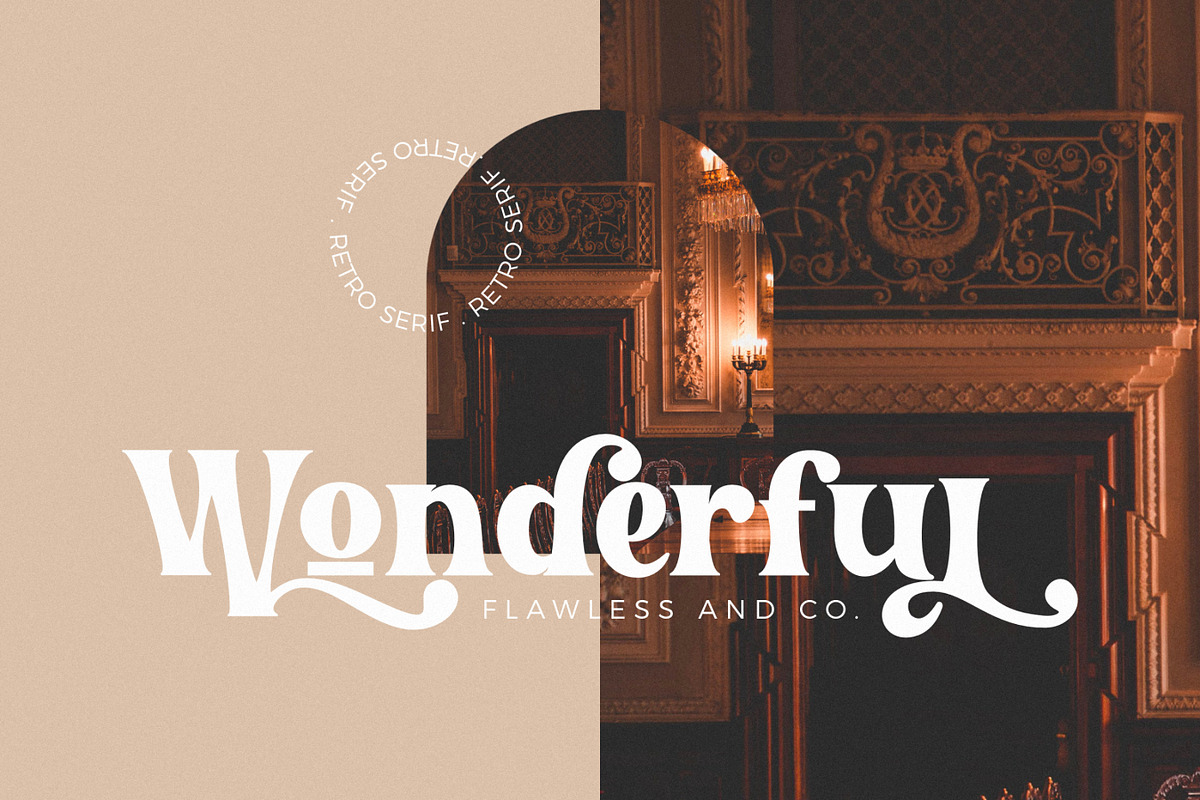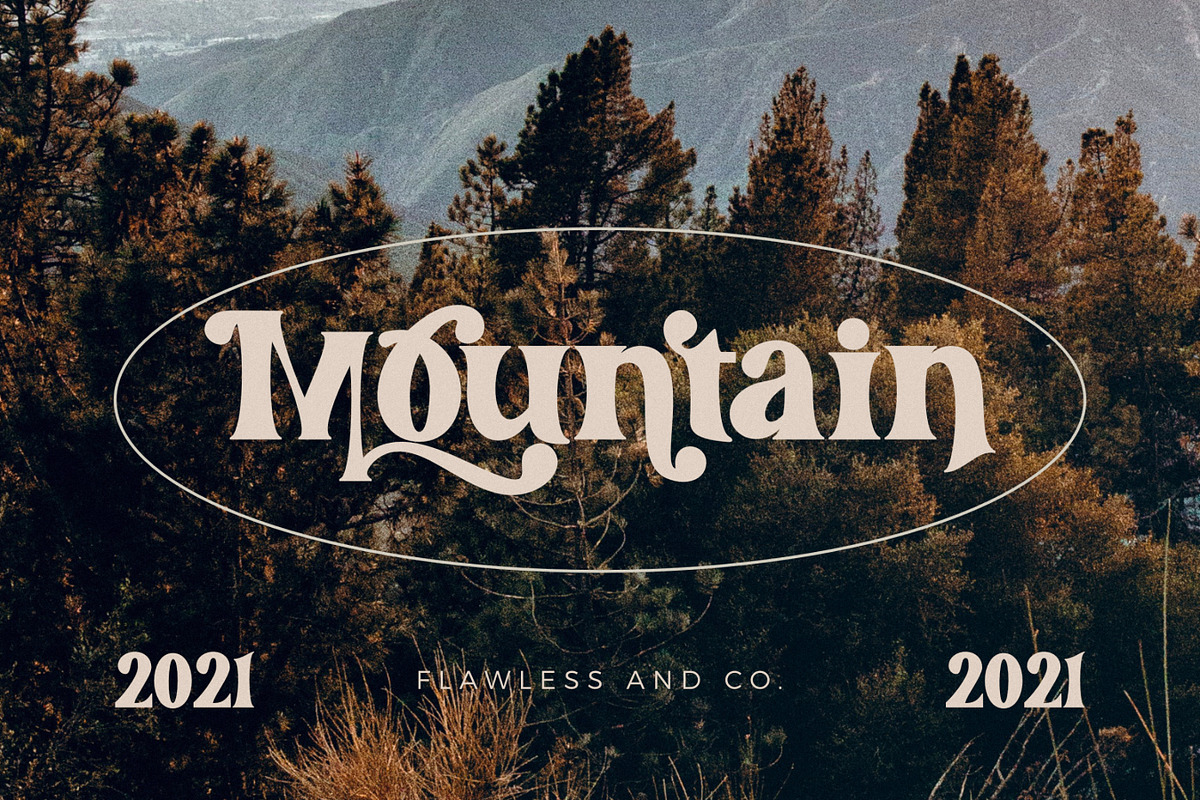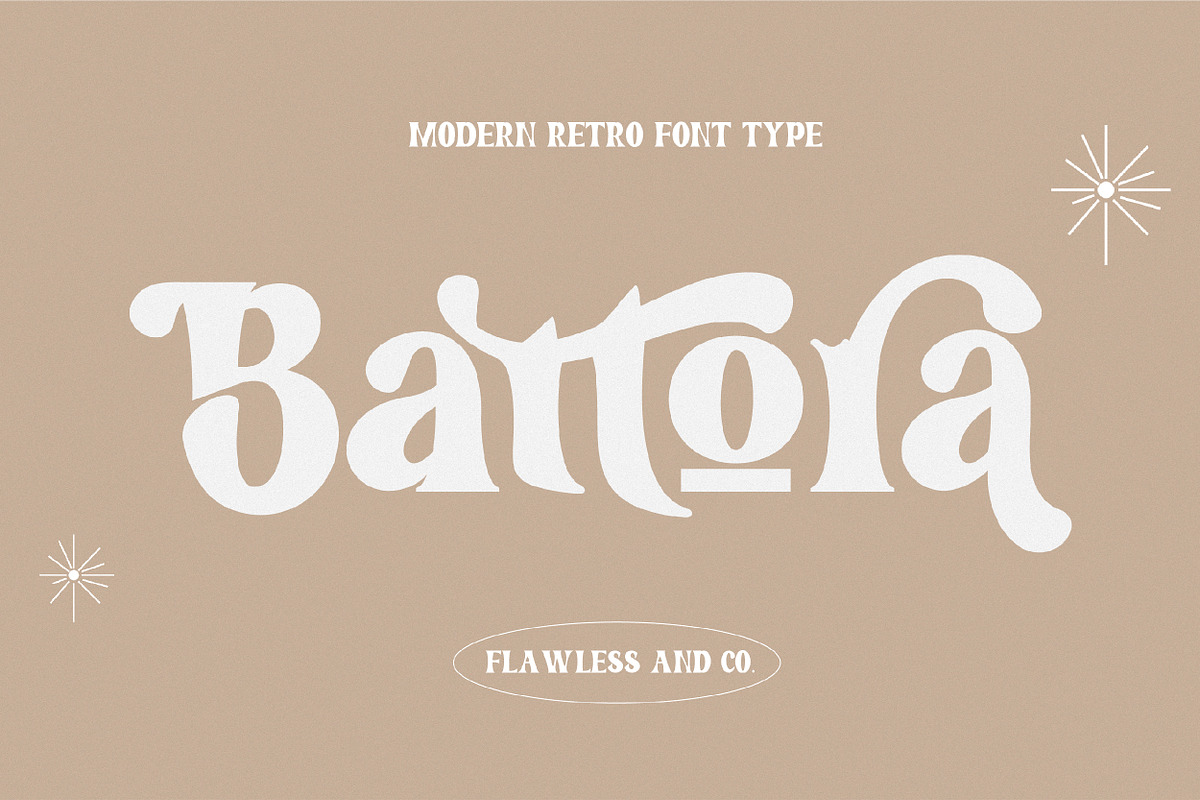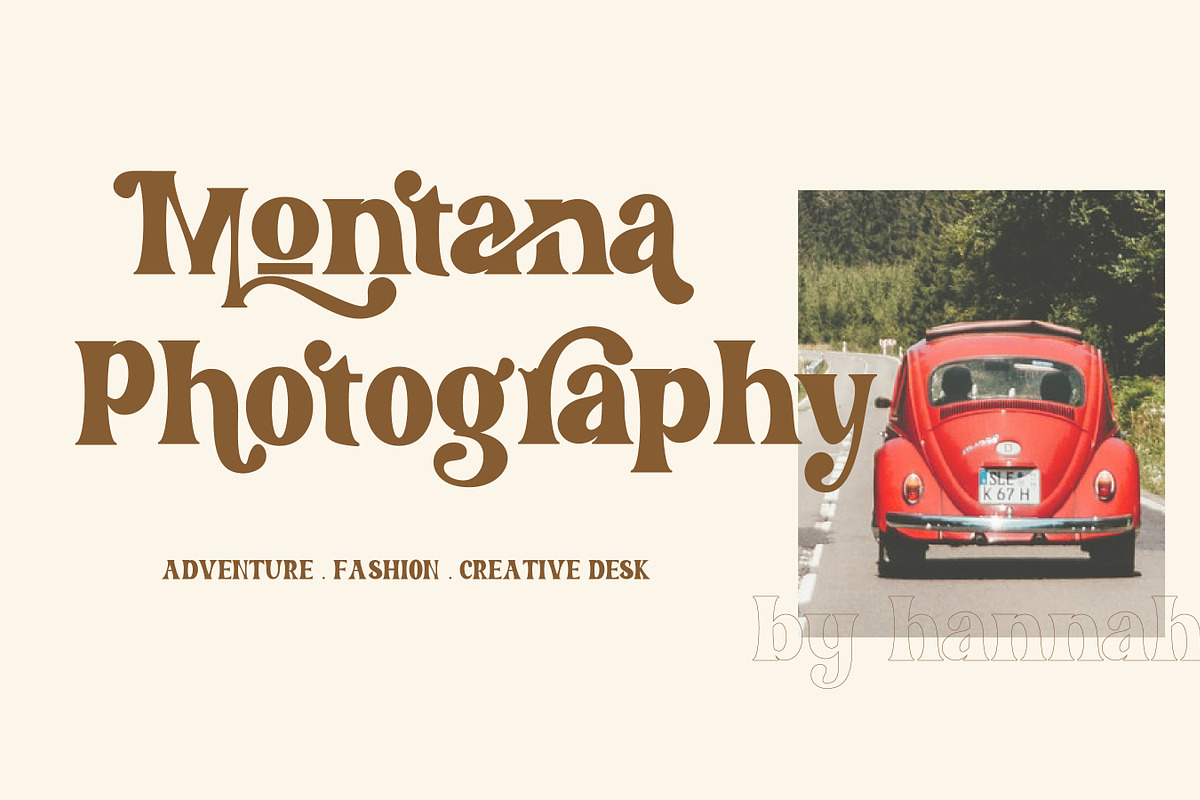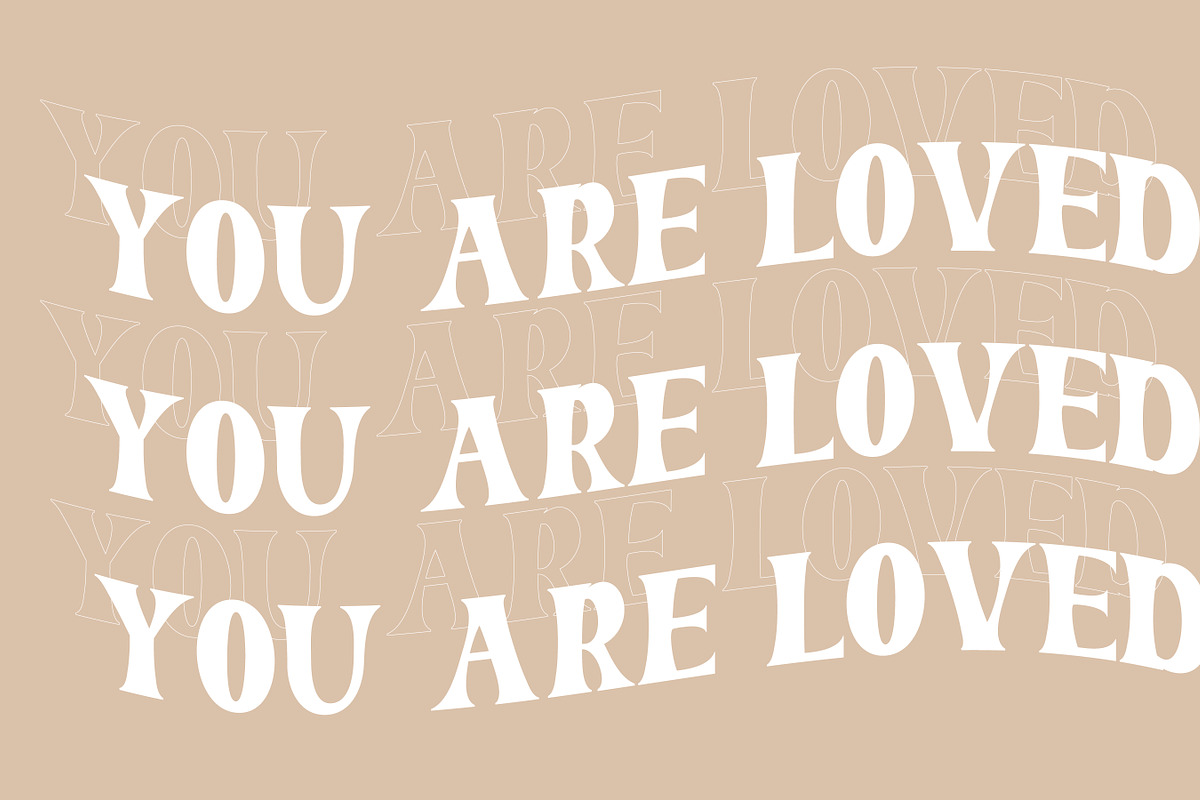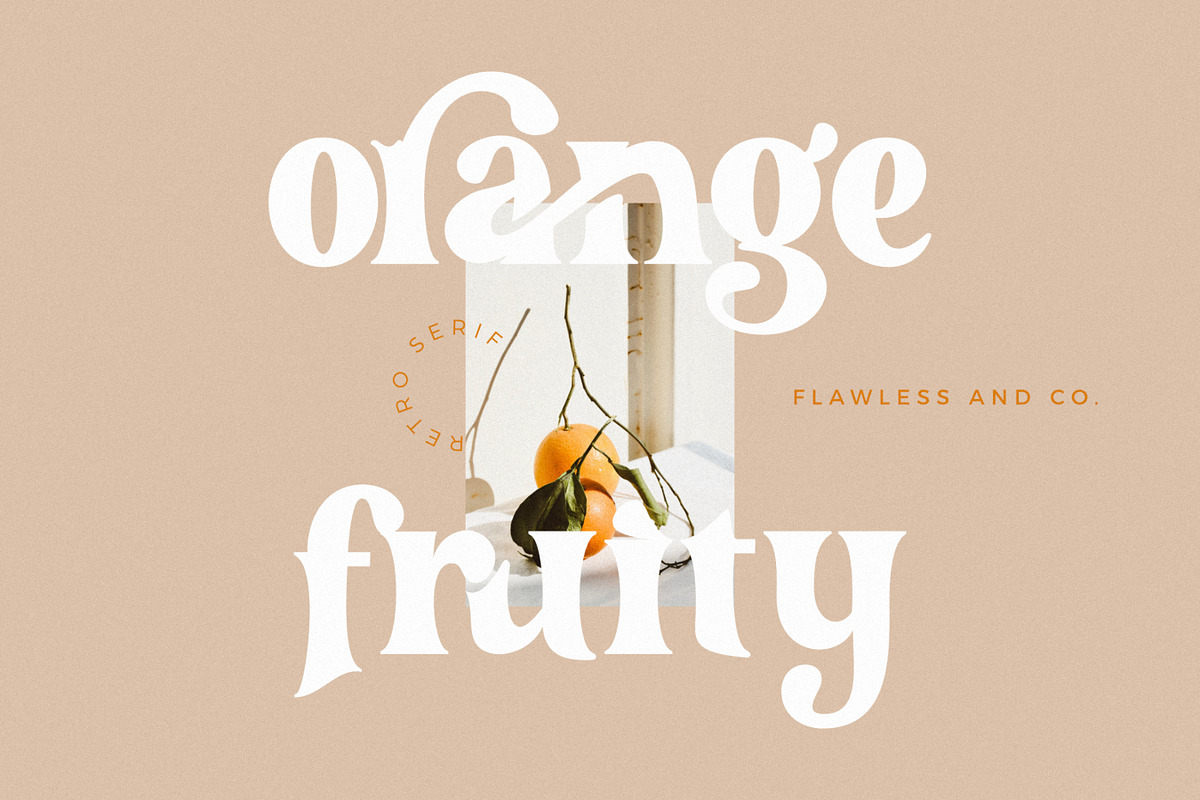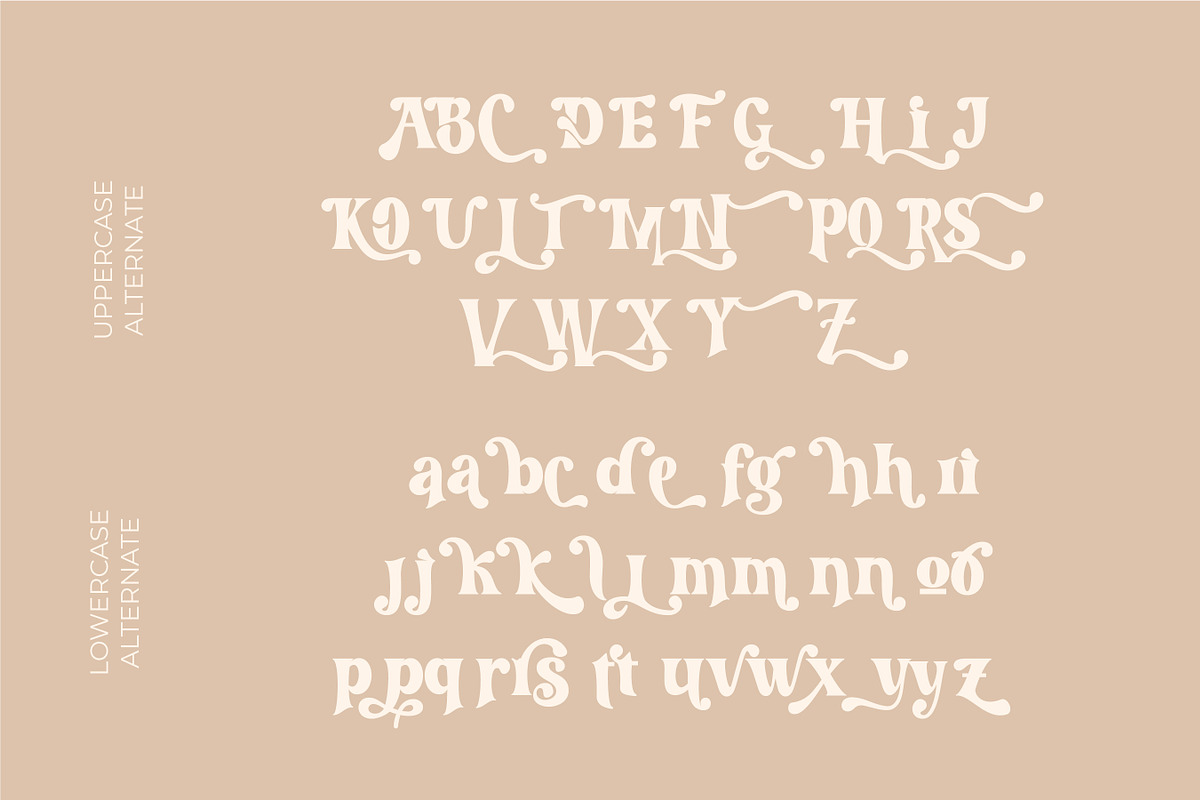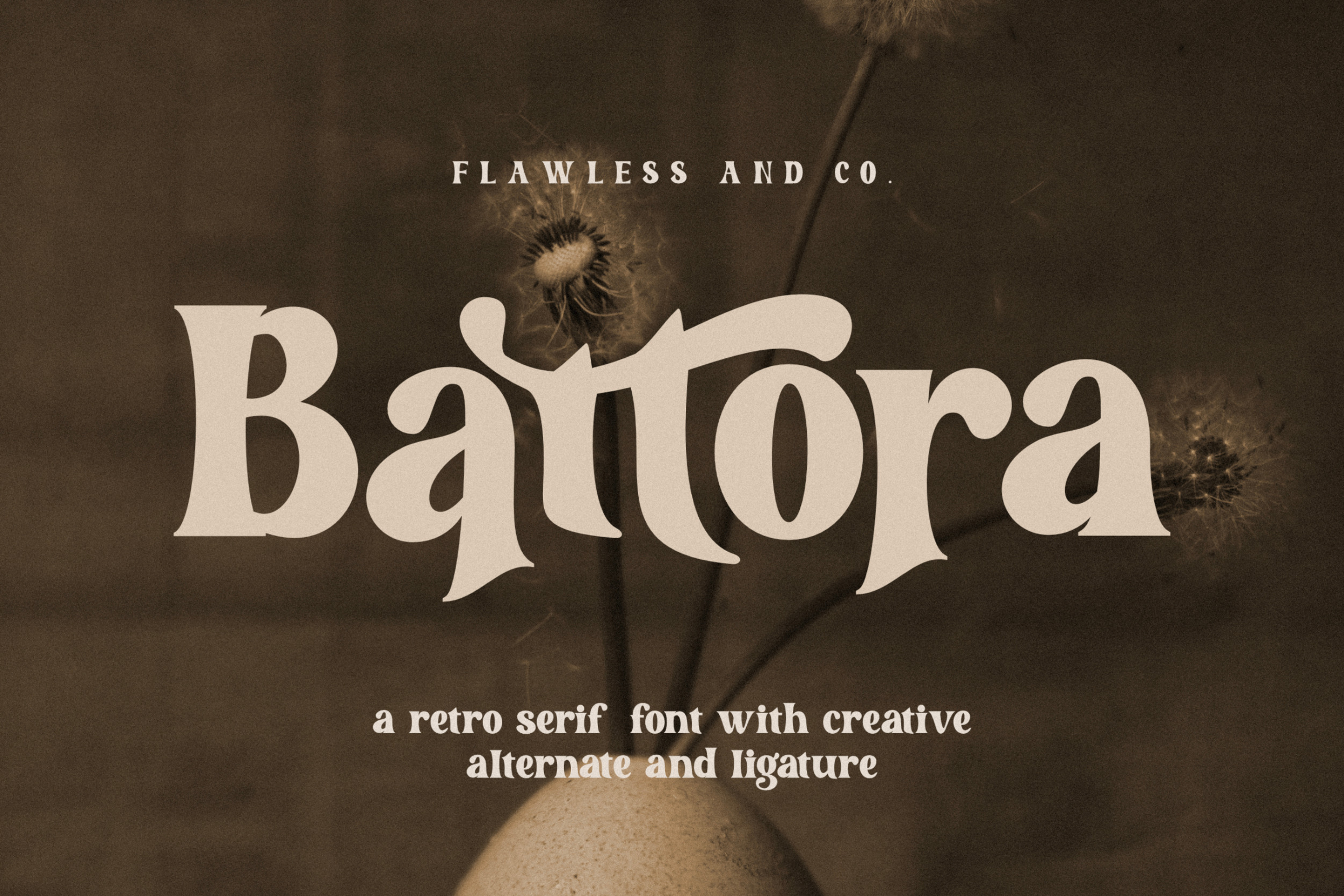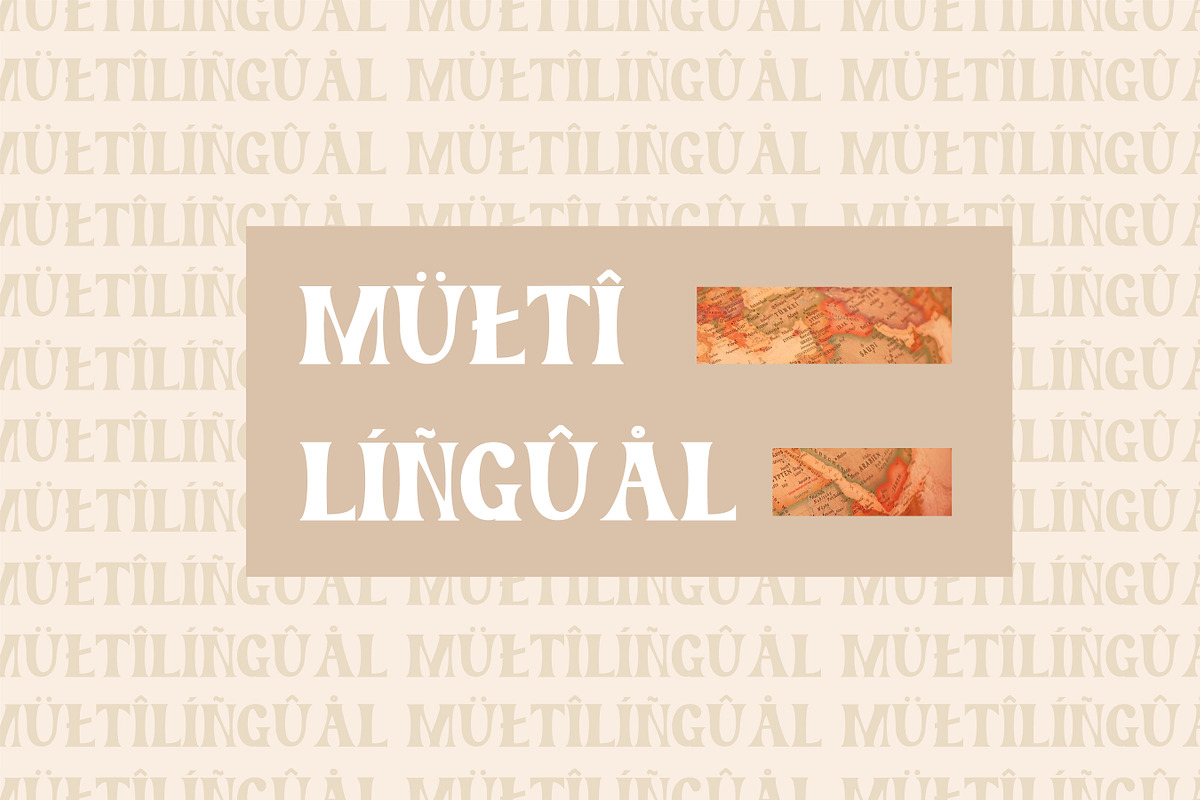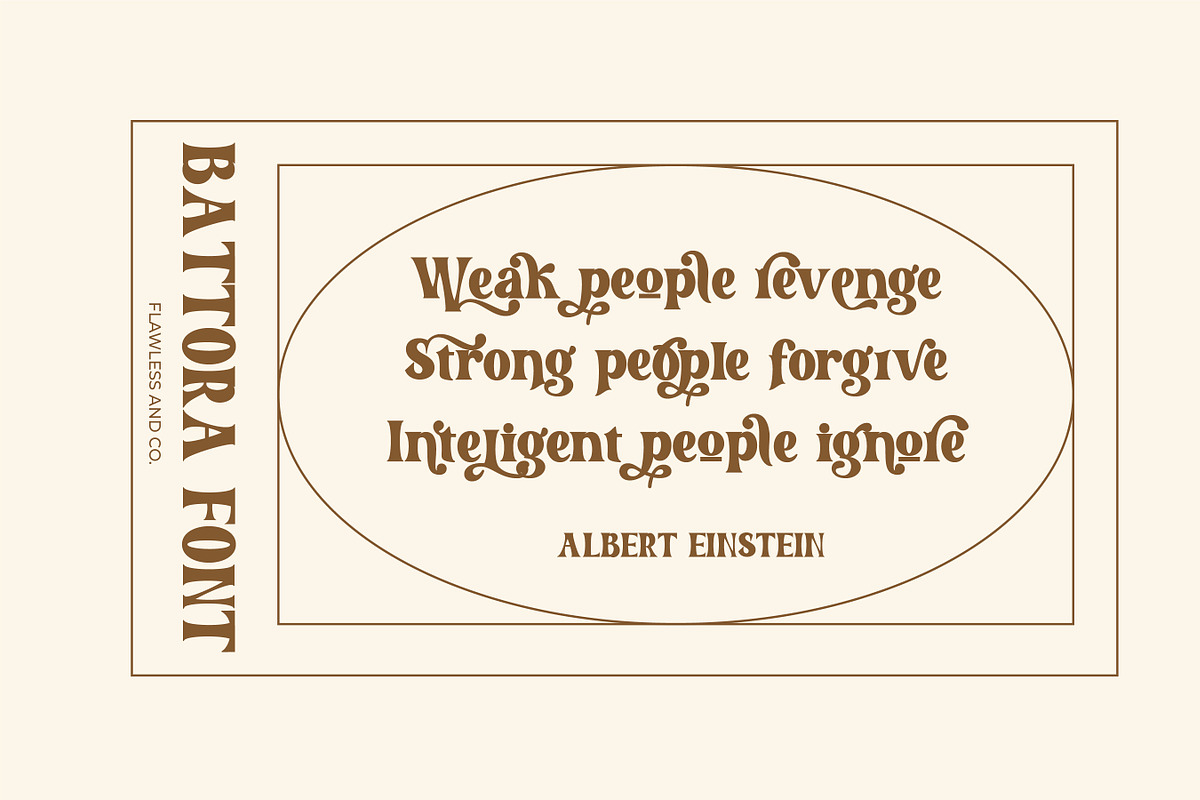
Battora - Modern Retro Font
introducing our new "Battora" Modern Retro with Fun and Elegant Style is perfect for branding, logos, invitation, master heads, and more.
Multilingual Uppercase alphabet A-Z Lowercase alphabet a-z Alternate Character Numbers 0-9 Some punctuation